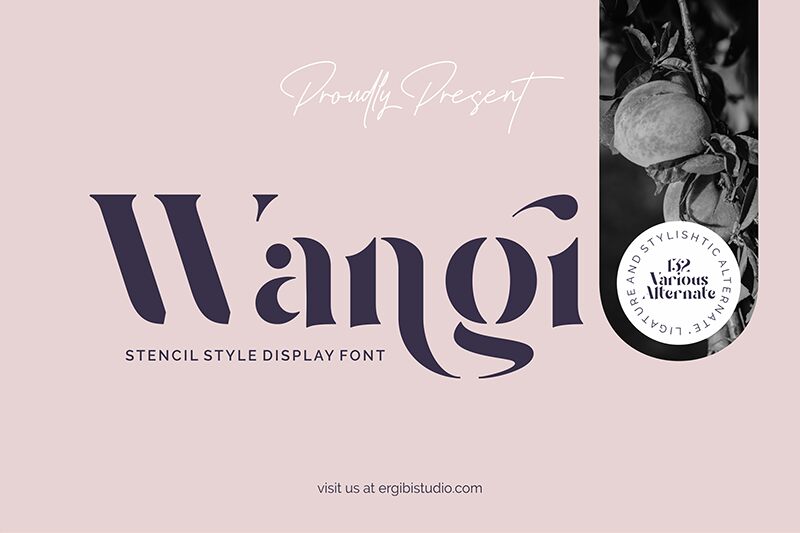
Wangi
Wangi is a bold and unique display font, designed by Riyadh Rahman. With its distinctive stencil style, Wangi stands out from the crowd. It's perfect for making a statement in posters, logos, headers and titles. It also brings extra flair to headlines and slogans, making them more eye-catching. Wangi can be used to lend an urban edge to fashion magazines or add pizzazz to product packaging.